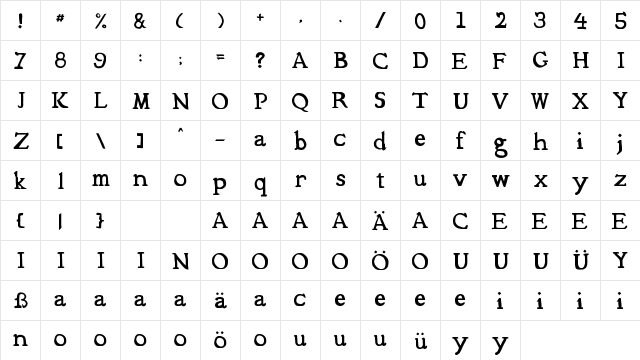
Mediqua Regular
Design Context for Mediqua Typeface
Mediqua offers clean, dependable letterforms without strong stylistic allegiance, making it a practical choice for designers who need flexibility.